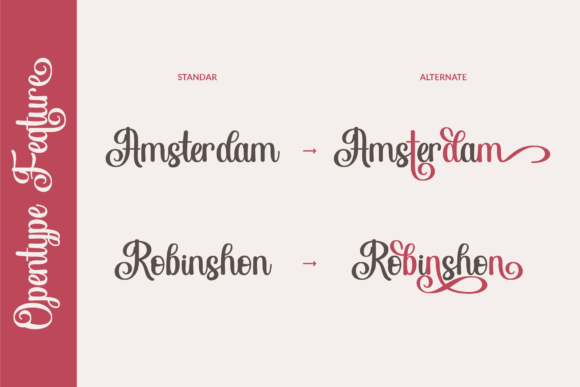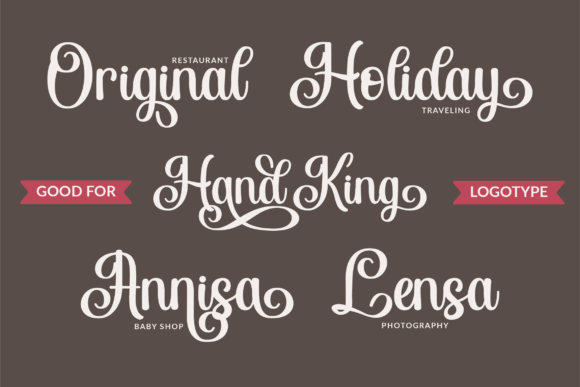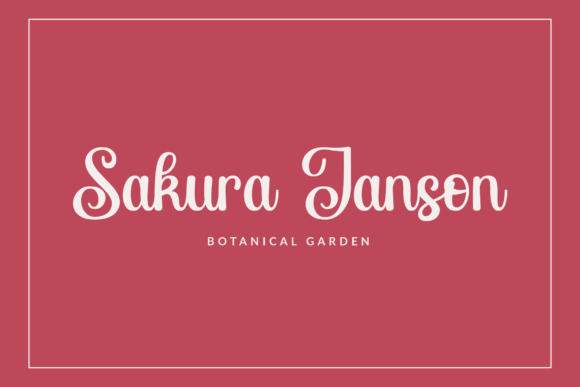
Introduction to Hand of King Font
As designers, we’ve all been there – staring at a blank canvas, struggling to find the perfect font to bring our creative project to life. But what if we told you that there’s a secret to unlocking the perfect handwritten touch? Enter the Hand of King Font, a stunning and elegant script font that’s about to revolutionize your design game.
Imagine being able to add a touch of high-quality whimsy to your designs with ease, without sacrificing any level of sophistication. That’s exactly what the Hand of King Font offers – a free download that’s packed with versatility and style. From wedding invitations to business cards, this font is the perfect design resource for any creative project that requires a personal touch.
With its transparent background and PUA encoded glyphs, the Hand of King Font is a game-changer for designers. Say goodbye to tedious design work and hello to effortless elegance – discover the beauty of the Hand of King Font for yourself.
Key Features of Hand of King Font
- High-quality design suitable for a creative project, offering a unique and elegant touch.
- Includes a transparent background, allowing for easy integration with various design elements.
- Features a large character set, including uppercase and lowercase letters, numbers, and special characters.
- Designed with a resolution of 300 DPI, ensuring crisp and clear text rendering.
- Perfect for use in logos, titles, and other design elements where a regal and majestic feel is desired.
Honest Review: Hand of King Font
I recently came across the Hand of King Font, a unique and intriguing font that caught my attention. As a designer, I’m always on the lookout for high-quality design resources that can elevate a creative project.
Here are some of the things that work well with this font:
- ✨ Unique and creative design that can add a touch of sophistication to a project
- ✨ Transparent background, allowing for seamless integration with other design elements
- ⚠️ Limited character set, which may not be ideal for longer texts or body copy
- ⚠️ Not suitable for use in small text sizes, as the font may become difficult to read
Overall, I think the Hand of King Font is a great addition to any designer’s toolkit, especially for projects that require a touch of elegance and sophistication. While it may not be suitable for all types of projects, it’s definitely worth considering for the right creative project.
The Hand of King Font is a high-quality, free download design resource ideal for creative projects. This font features a unique, regal style that is perfect for any project that requires a touch of elegance and sophistication.
To get the most out of the Hand of King Font, use it in conjunction with other design elements to create a cohesive look. Experiment with different font sizes and colors to add emphasis to your design.
Common Use Cases for Hand of King Font
The Hand of King Font is perfect for a variety of creative projects, including:
- Wedding invitations
- Business presentations
- Blog posts
- Product labels
Yes, the Hand of King Font has a transparent background, making it perfect for use on any background. This feature allows for seamless integration into your design, giving you more creative freedom.